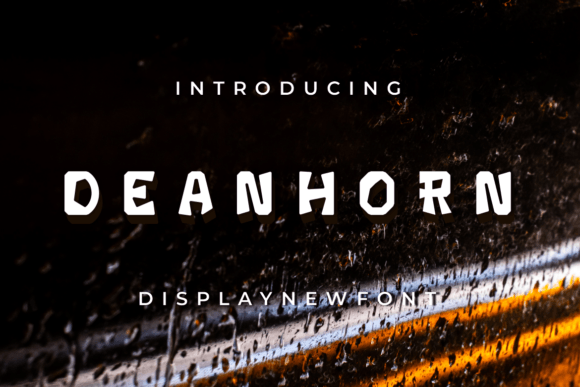
Introducing Dean Horn Font, the display font that will make your designs shine! Crafted with precision by maikofarazhatta, this font exudes a cool and authentic charm that will captivate your audience.
Step into the world of typography and let Dean Horn Font guide you to greatness. With its stunning curves and eye-catching lines, this font is the perfect choice for display ads, headlines, posters, and any other project that demands attention. Its versatility knows no bounds, making it a valuable addition to any designer's toolkit.
But Dean Horn Font isn't just another pretty face. It carries with it a touch of magic, a power to transform ordinary words into captivating expressions. Its unique character adds depth and personality to every design, leaving a lasting impression on your audience.
Imagine the possibilities! With Dean Horn Font at your fingertips, you can create:
- Mesmerizing display ads that draw the eye and drive conversions
- Compelling headlines that hook readers and entice them to delve deeper
- Stunning posters that announce your events or promotions with flair
- Breathtaking designs that showcase your creativity and leave your audience in awe
Don't settle for ordinary fonts that blend into the background. Embrace the power of Dean Horn Font and let your designs soar to new heights. Its captivating charm and versatility will make it your go-to choice for any project that demands excellence.